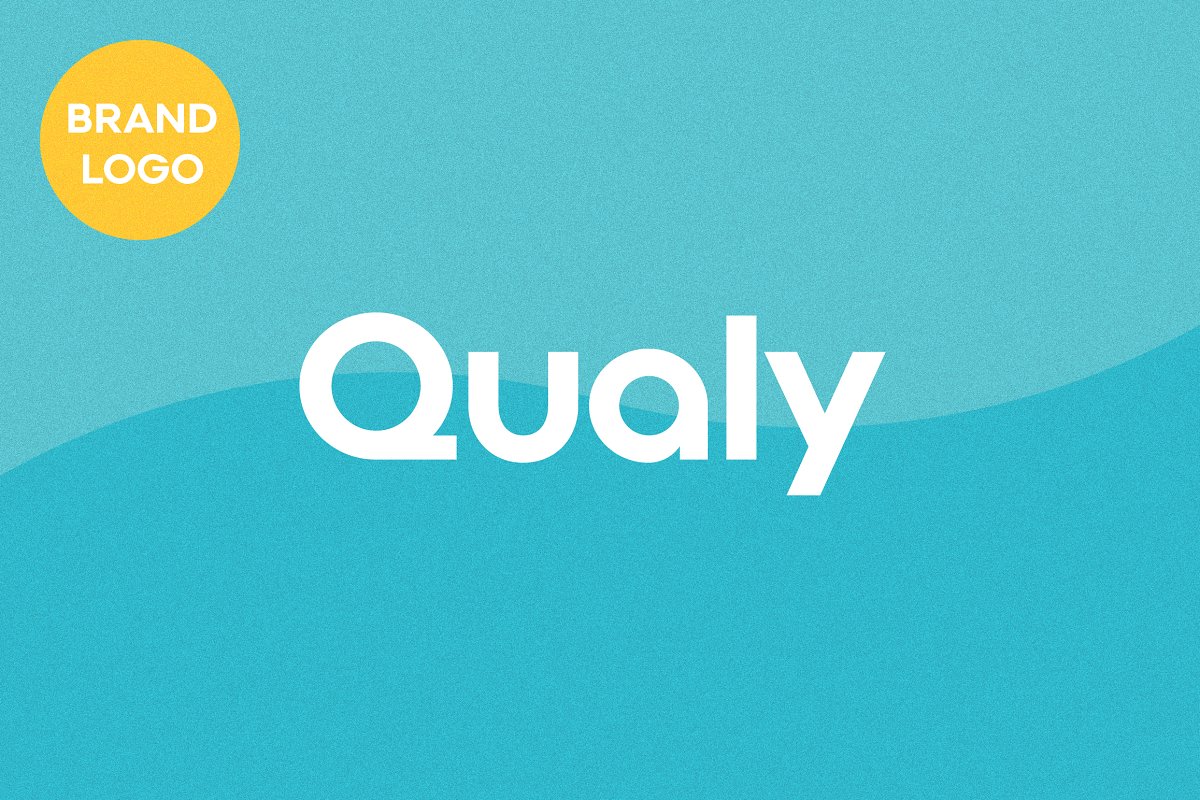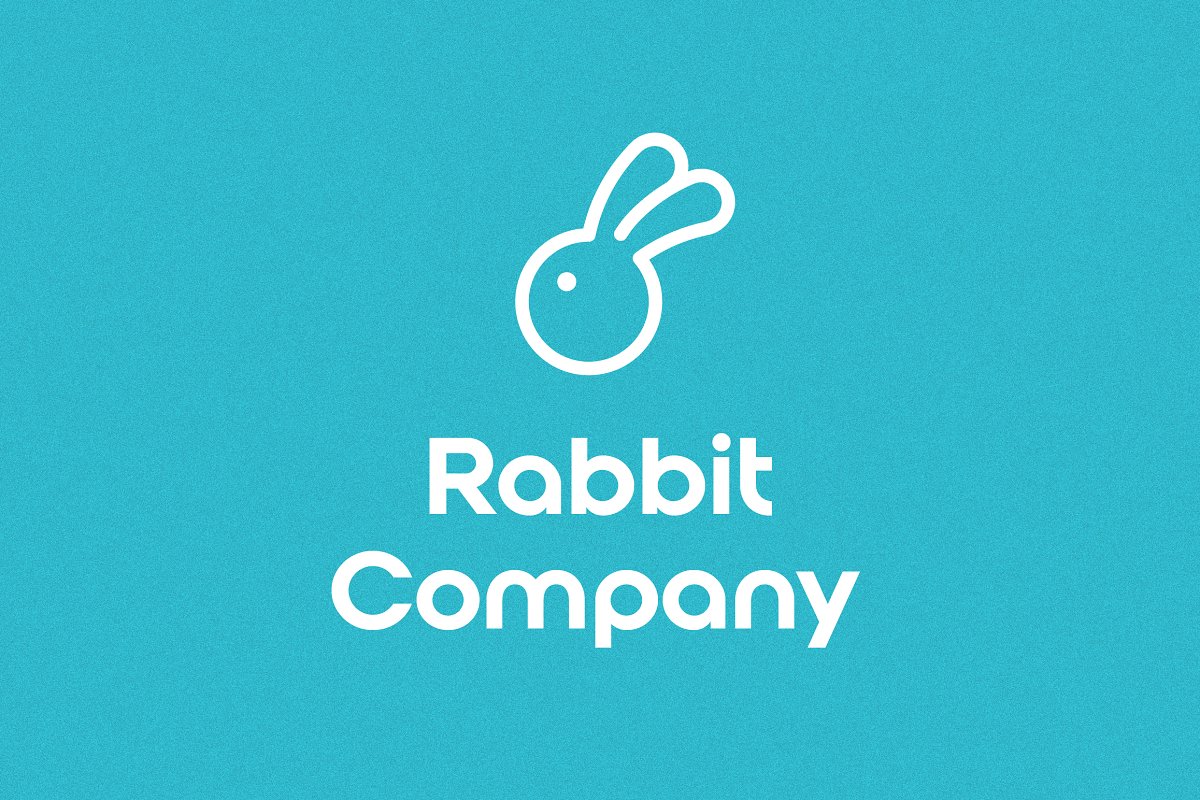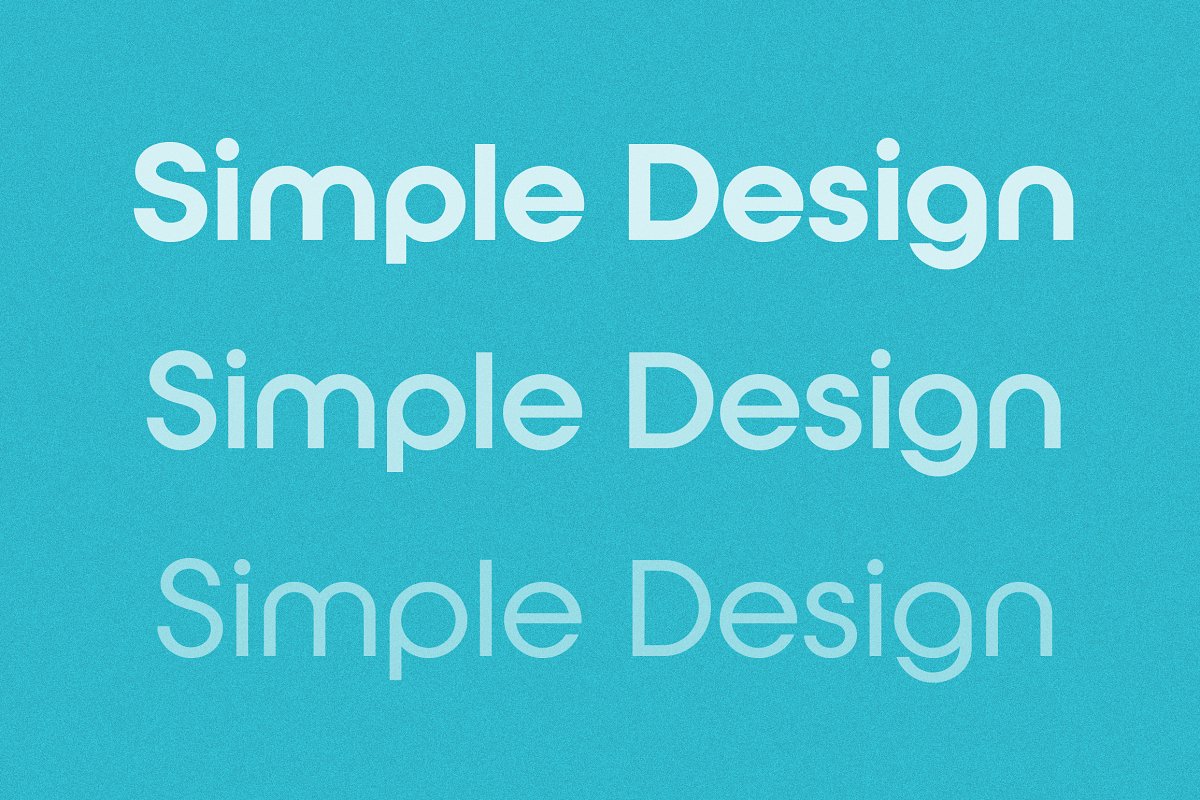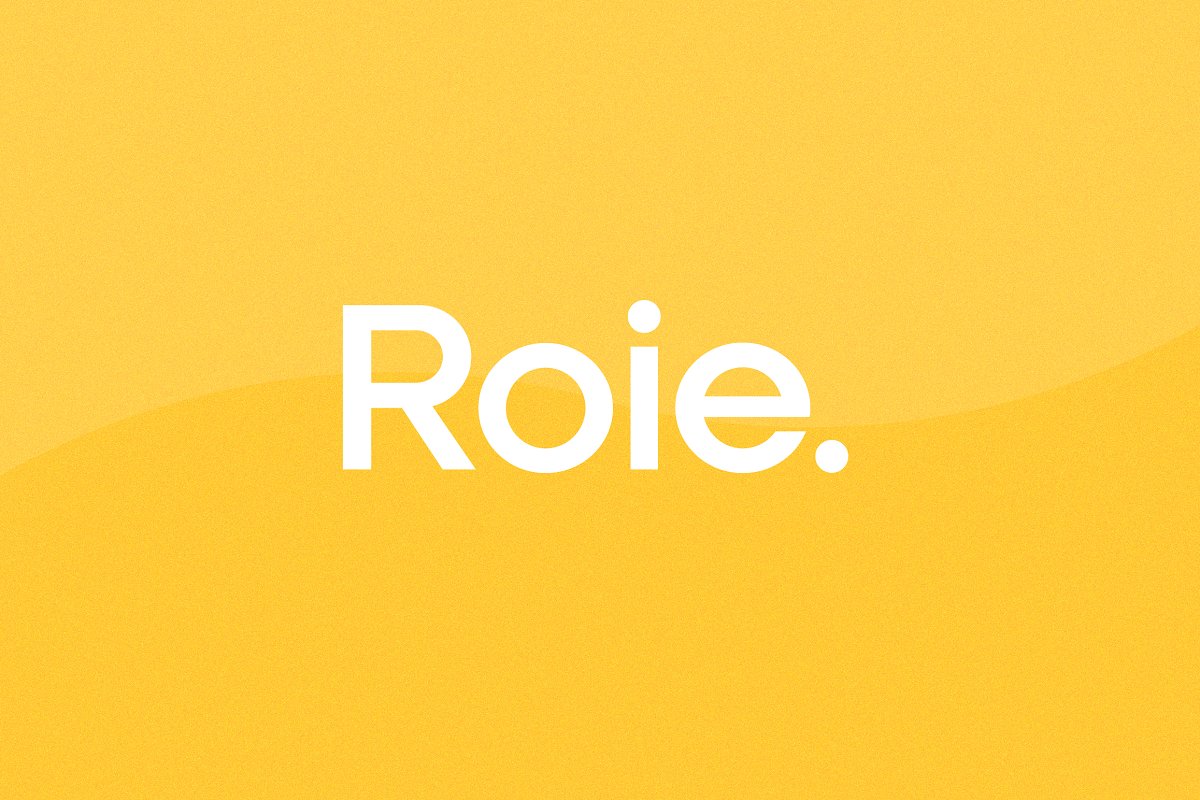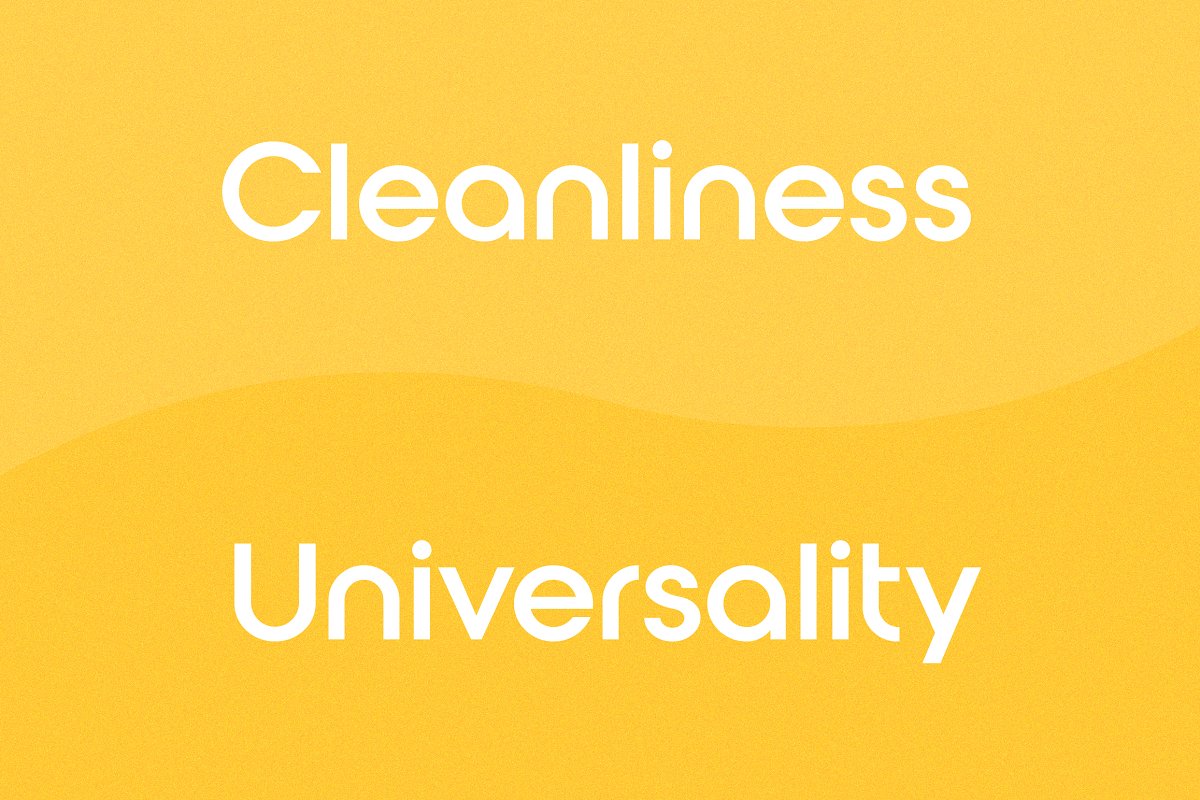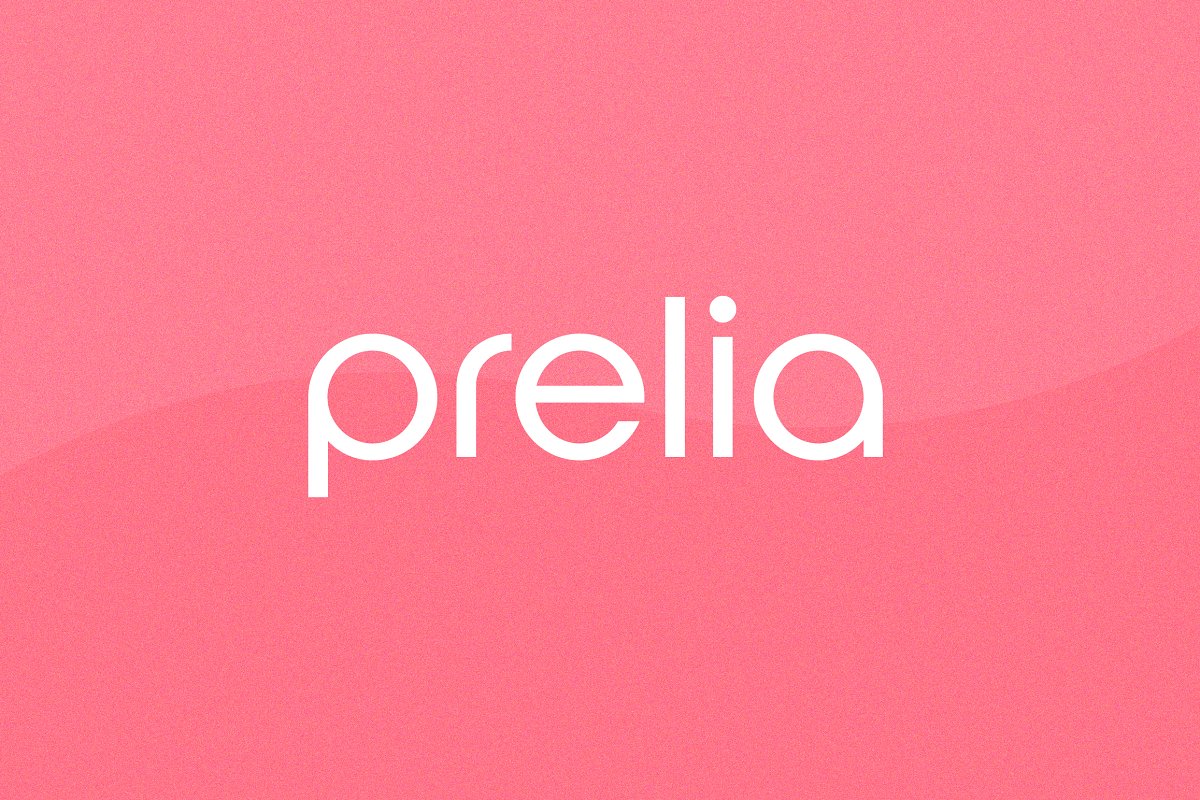
About the Qualy Logo Collection Font
Qualy Collection is a special font set for your logo & branding.
Each font has its own name & concept for independence, but can be a weight variation.
The main font, Qualy is a bestseller logo font from 2018, also used by Dribbble LLC.
Qualy Logo Collection Font
Character Set: A-Z / 0-9 / 54 Punctuation / 199 Latin diacritics for 66+ languages